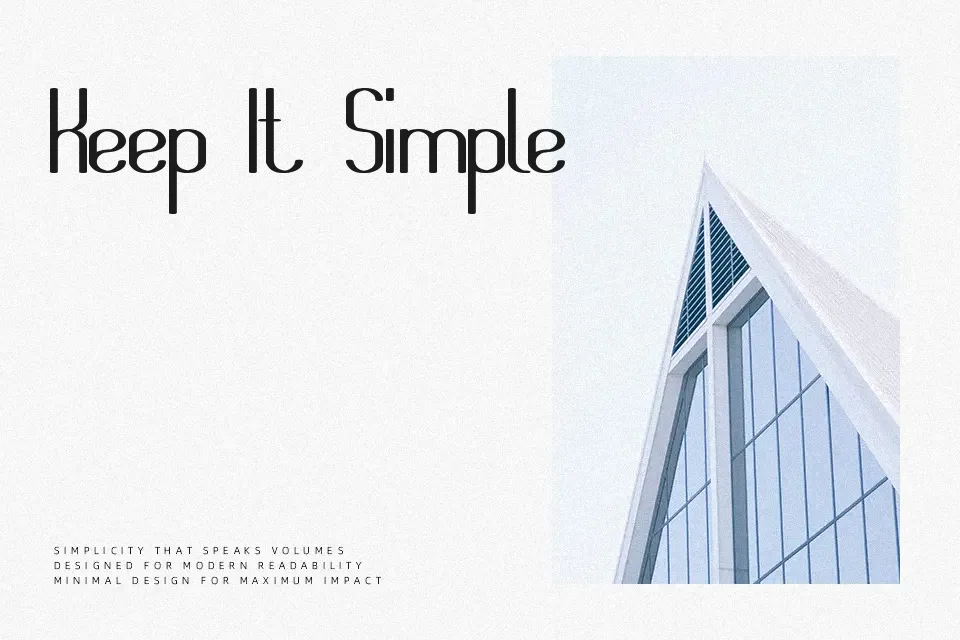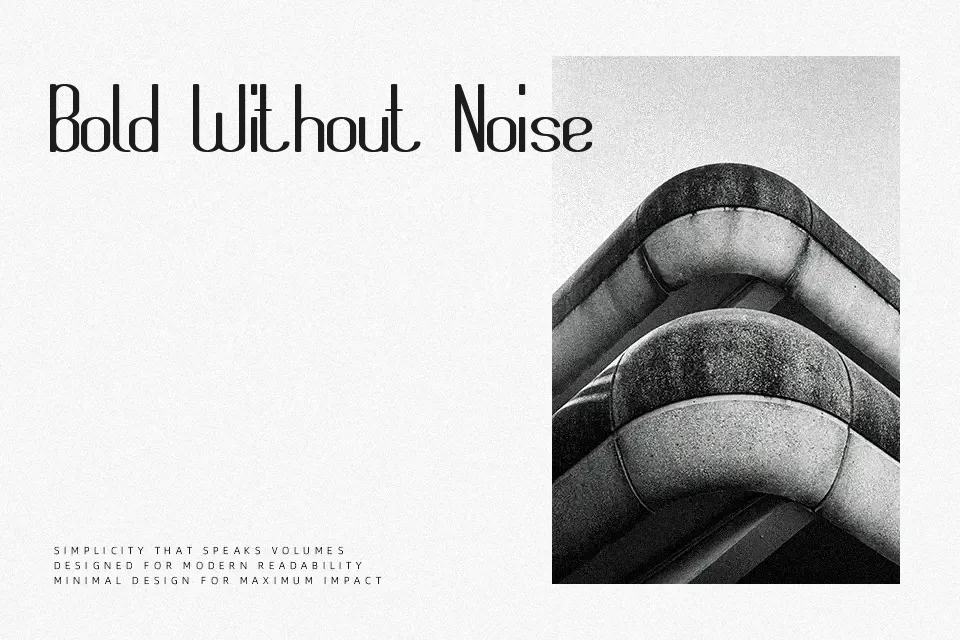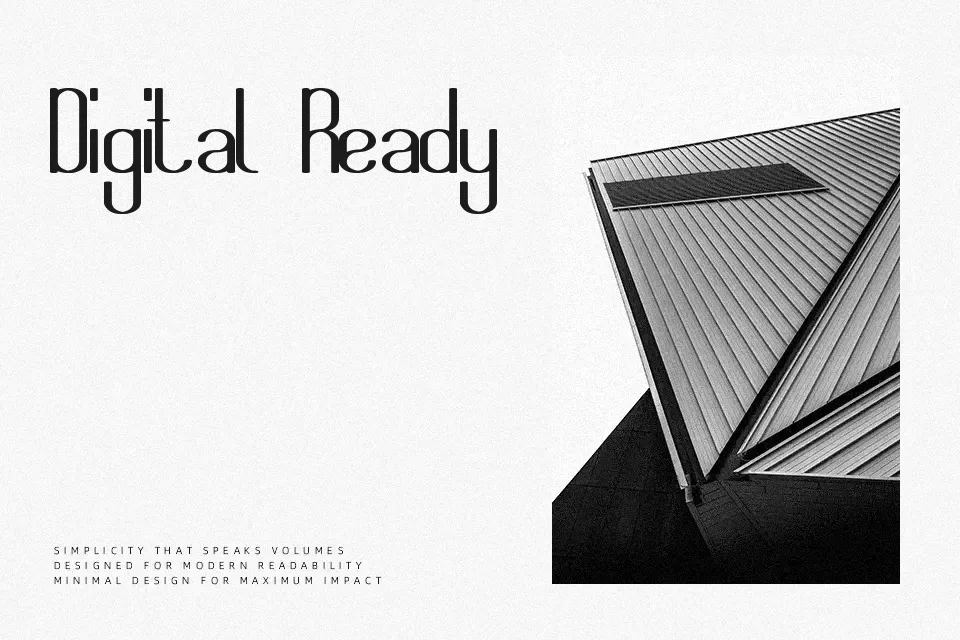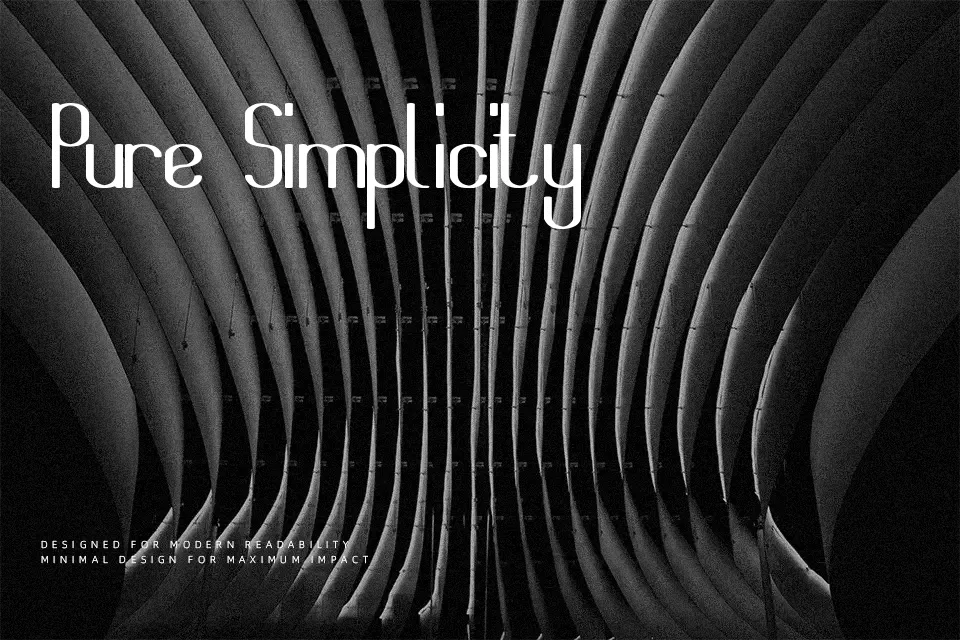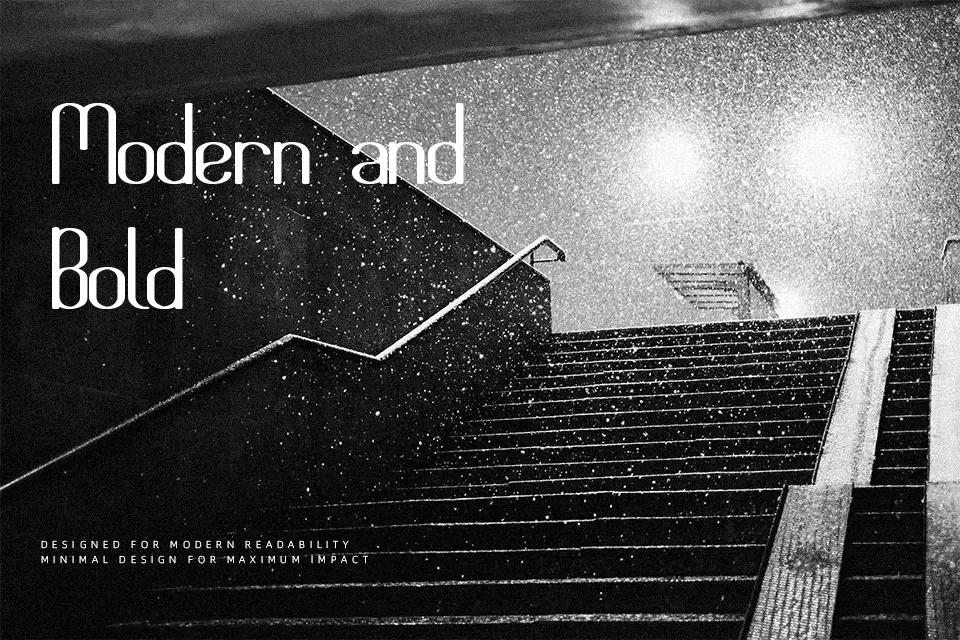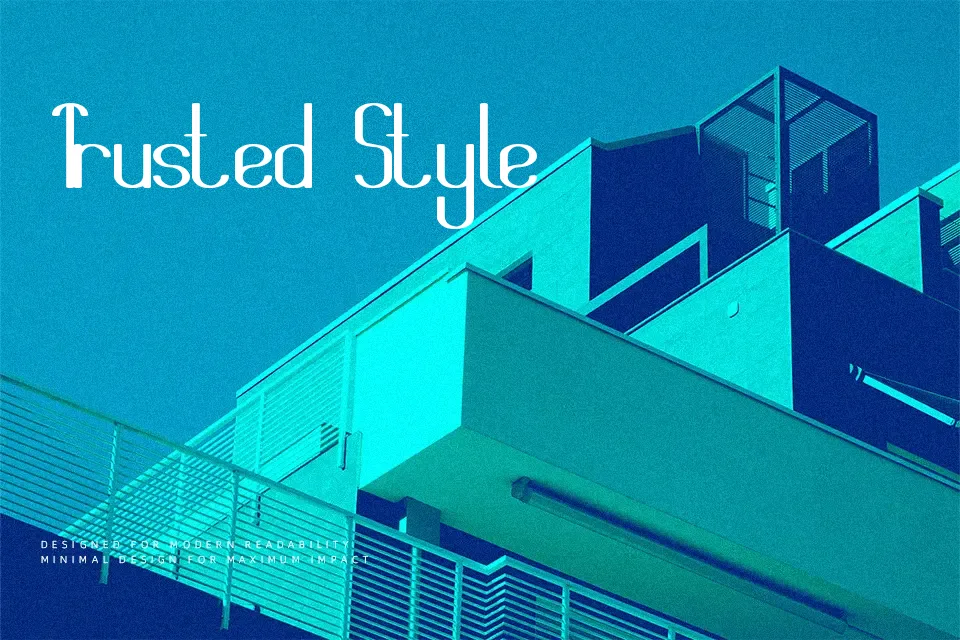
Think More for Solution Font
Think More for Solution Font showcases an elongated structural framework defined by slender, uniform stroke weights and significantly compressed character widths. Each glyph exhibits tall vertical ascenders and compact horizontal spans, creating an orderly, mechanical rhythm across the line. The spacing between characters remains tight yet deliberate, preserving distinctive shapes when rendered at large display scales. In practical applications, the typeface excels in technology branding, electronic entertainment banners, and dramatic publication covers. However, the extreme height-to-width ratio and narrow apertures reduce legibility in continuous body copy or small mobile captions. For brief display contexts, the design offers immediate graphic authority.
Best For: sci-fi movie posters, tech hardware packaging, electronic music event banners, cyber game interfaces
Not Ideal For: long continuous paragraphs, mobile interface body text, dense technical documentation, legal agreements
Perfect for gaming, headline, and logo, with a clean and condensed style.